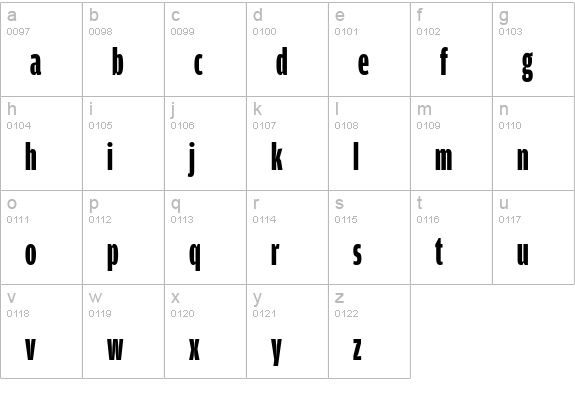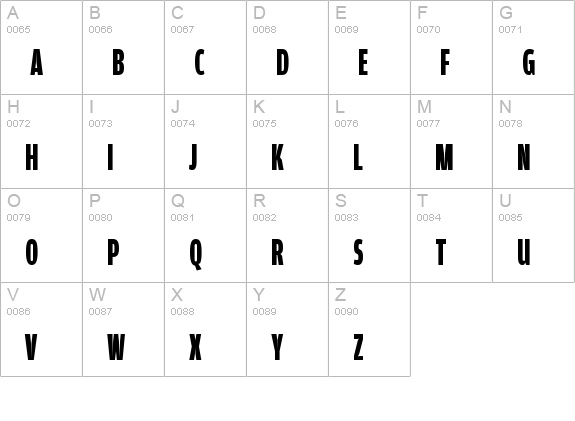
AmplitudeExtraComp-Black is a maximum-weight, dramatic variant in the AmplitudeExtraComp typeface family \xE2\x80\x94 well suited to maximum-impact headlines, posters, and packaging.
AmplitudeExtraComp-Black font is a bold and striking typeface that commands attention with its strong and powerful appearance. Its extra compact design exudes a sense of modernity and sophistication, making it ideal for headlines, titles, and branding materials. The sharp edges and clean lines of this font ensure maximum legibility, even at smaller sizes. Best of all, AmplitudeExtraComp-Black font is available for free download at FontsMarket.com. This means you can easily access and use this high-quality typeface for your design projects without any cost. Whether you're creating posters, advertisements, or website graphics, this font will add a touch of elegance and professionalism to your work. Don't miss out on the opportunity to enhance your designs with the impactful AmplitudeExtraComp-Black font, now just a click away at FontsMarket.com.